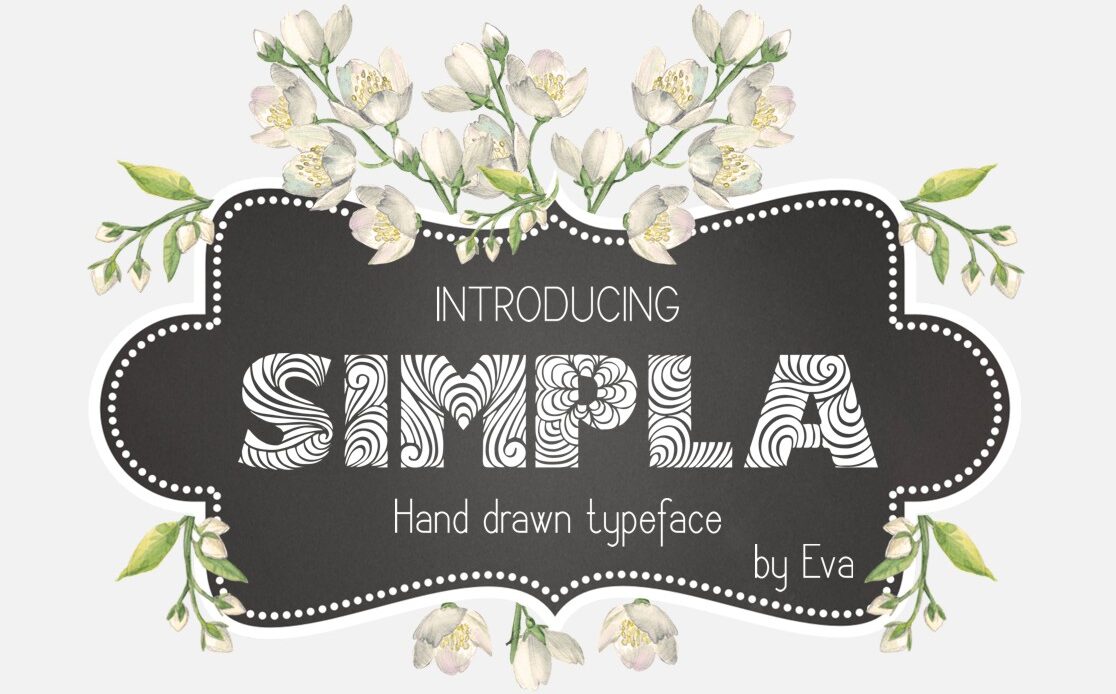
Welcome to the world of Simpla Font, an innovative and captivating font family designed to ignite your creativity and enhance your designs. This hand-drawn typeface, meticulously crafted by the experts at Digital Typeface Studio, is a true masterpiece that will add a touch of whimsy and charm to your projects.
Simpla Font is not just a collection of letters and numbers; it's an expression of art, a symphony of strokes that dance across the page, creating a visual feast for the eyes. Its intricate details and charming imperfections give it a handcrafted feel, evoking a sense of nostalgia and warmth that will captivate your audience.
As a decorative font, Simpla Font excels in creating eye-catching headlines, logos, invitations, and social media posts. Its playful and whimsical nature makes it perfect for projects with a touch of whimsy or a personal touch. Whether you're a crafter, a designer, or simply a lover of beautiful typography, Simpla Font is the perfect addition to your creative arsenal.
With its full set of capital letters and numbers, Simpla Font provides ample versatility for a wide range of design applications. Use it to create eye-catching logos that stand out from the crowd, add a touch of whimsy to your invitations, or design social media posts that are sure to turn heads.